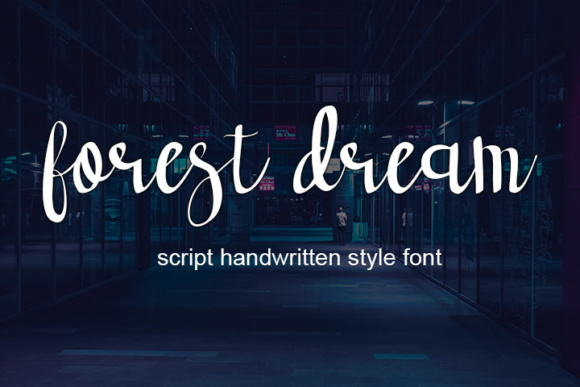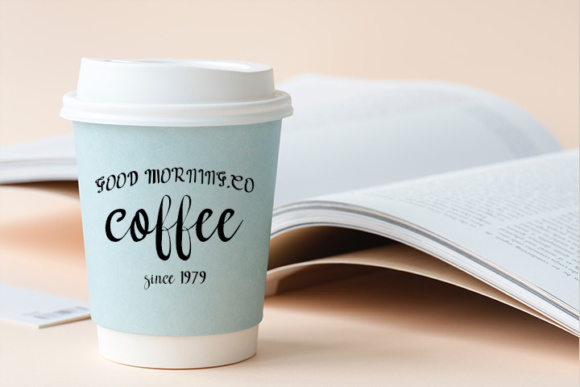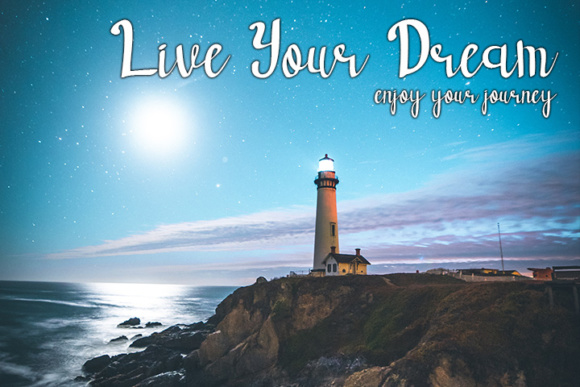
Weather In October Handwriting Font
Weather in October is a handwritten font. The letters are classy and unique.
Use Weather in October to get a more elegant look
This font is perfect for quotes, headings, blogs, invitations and more!